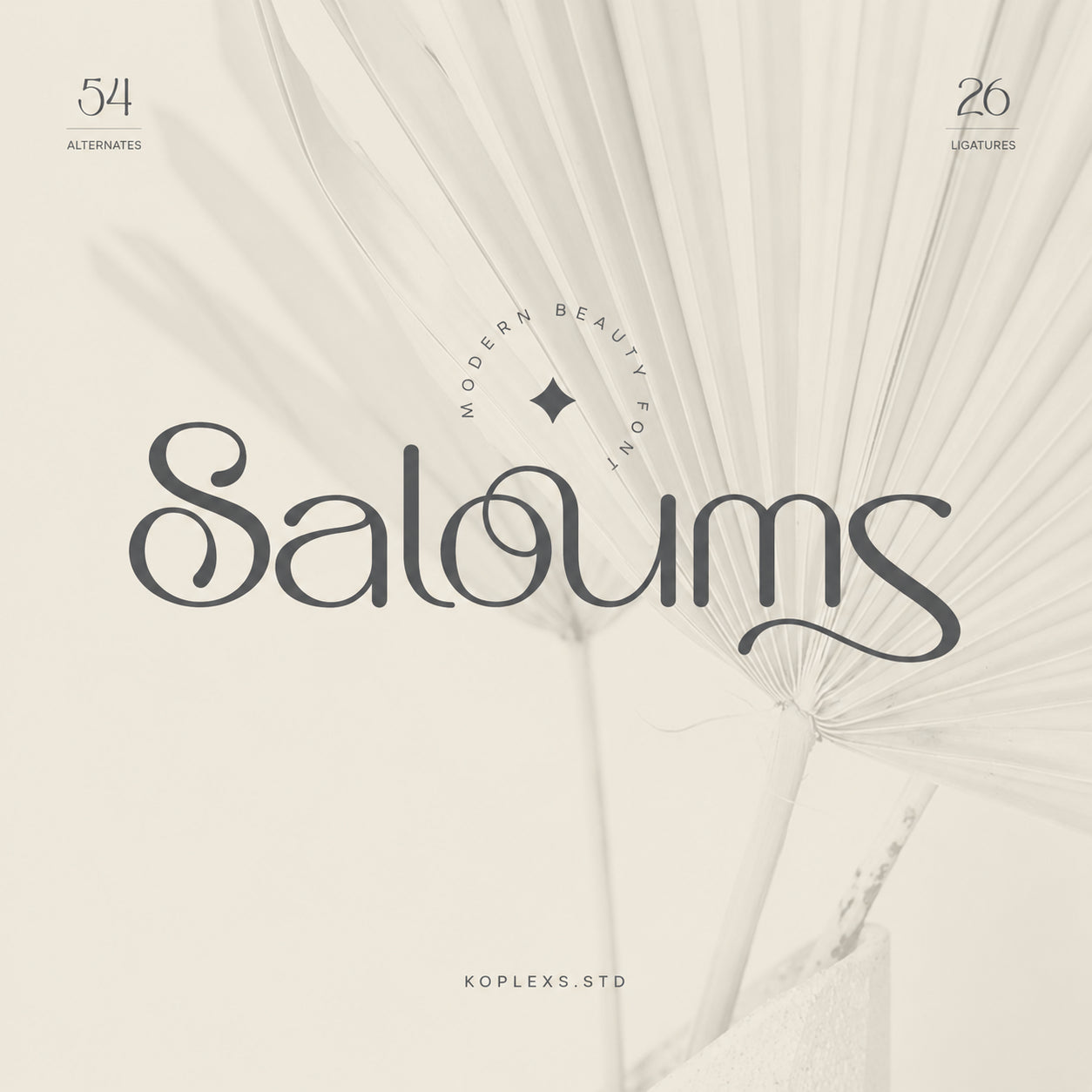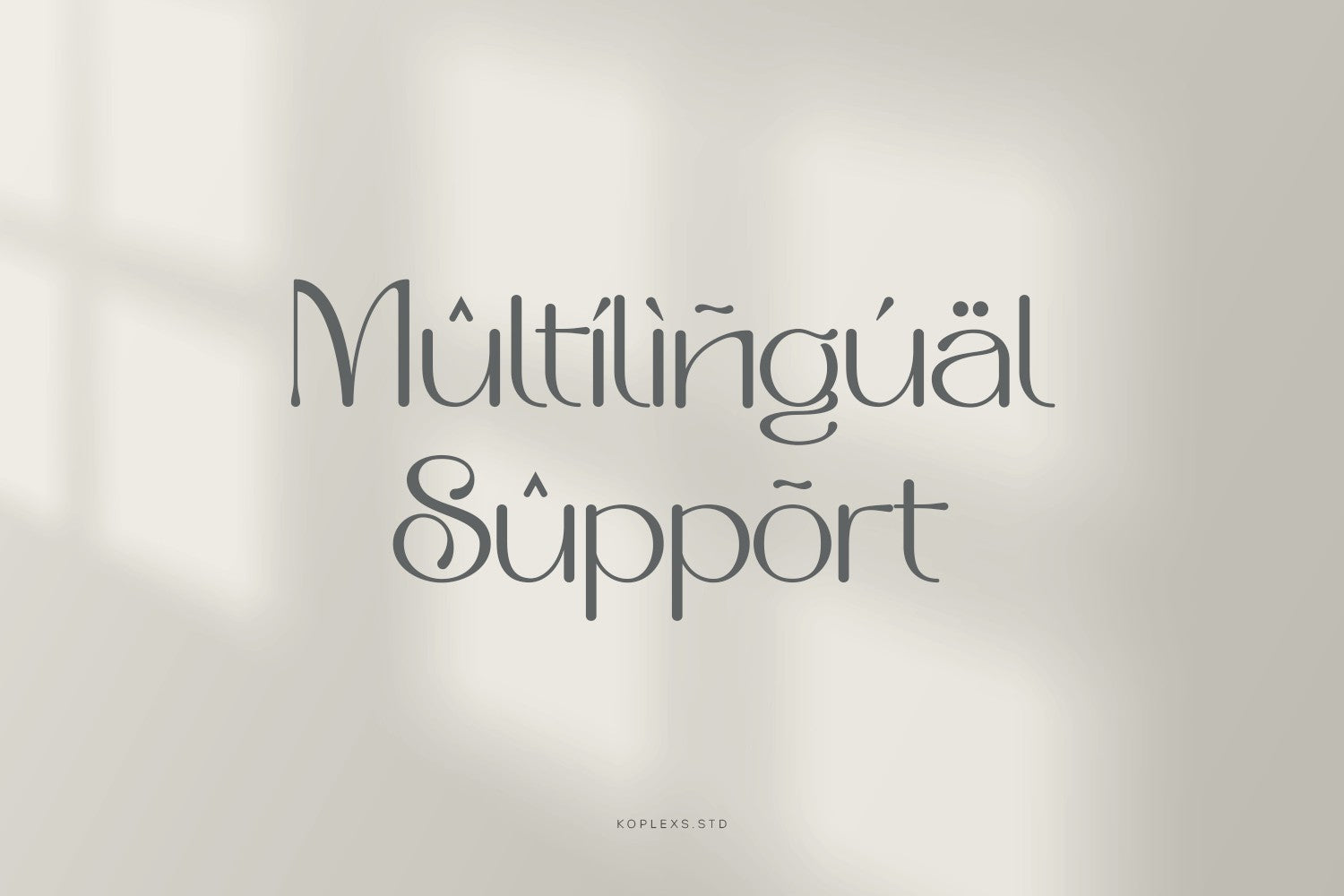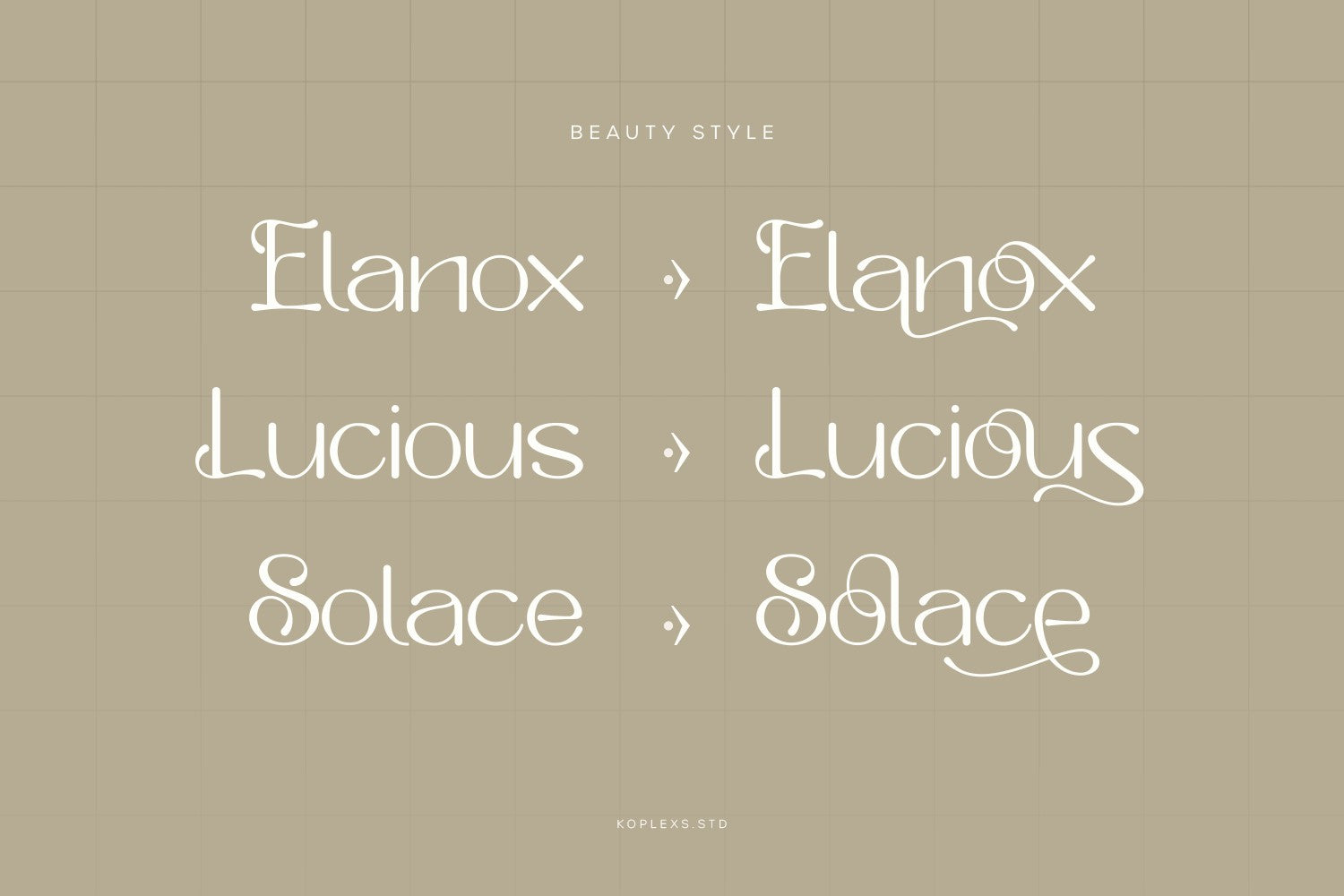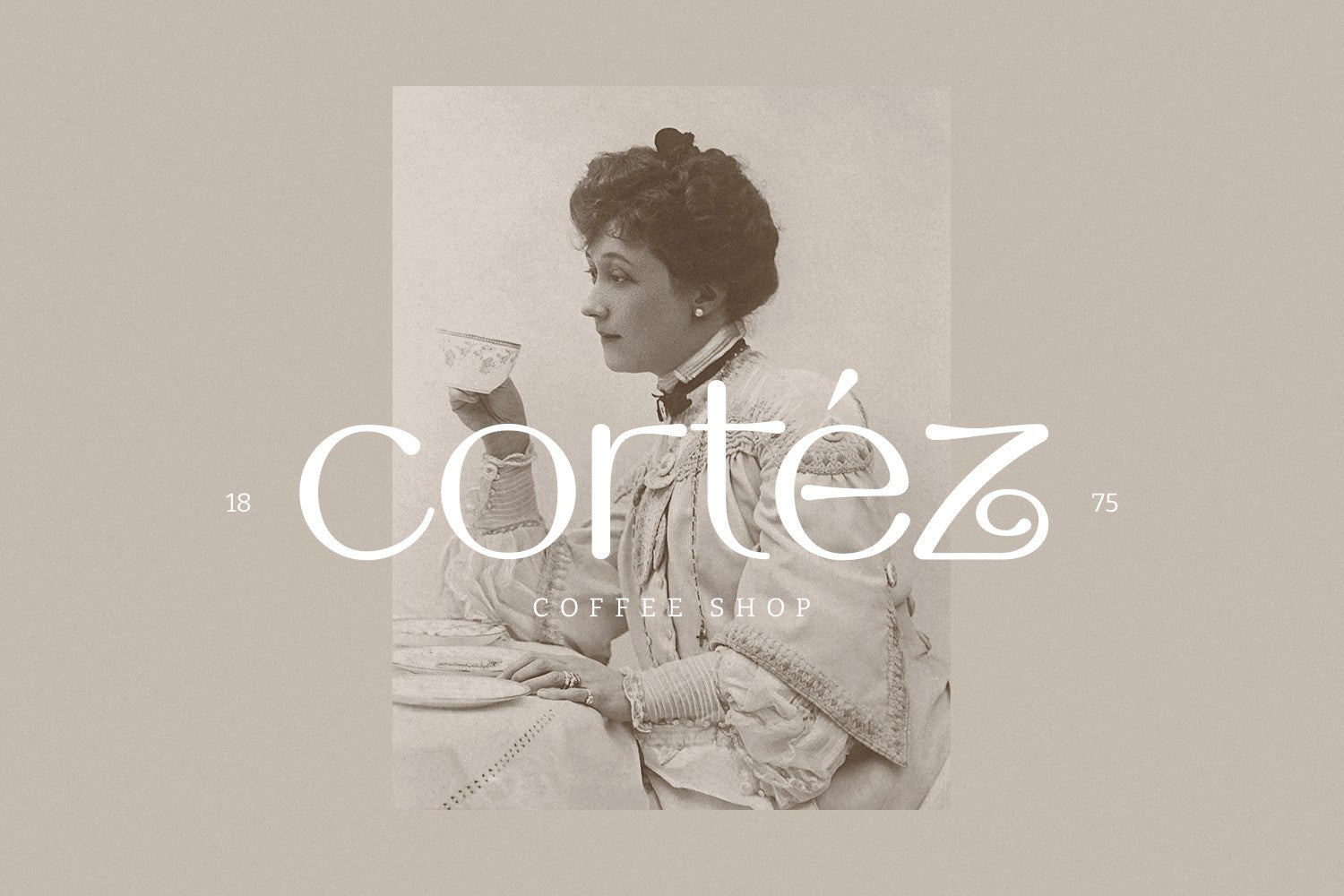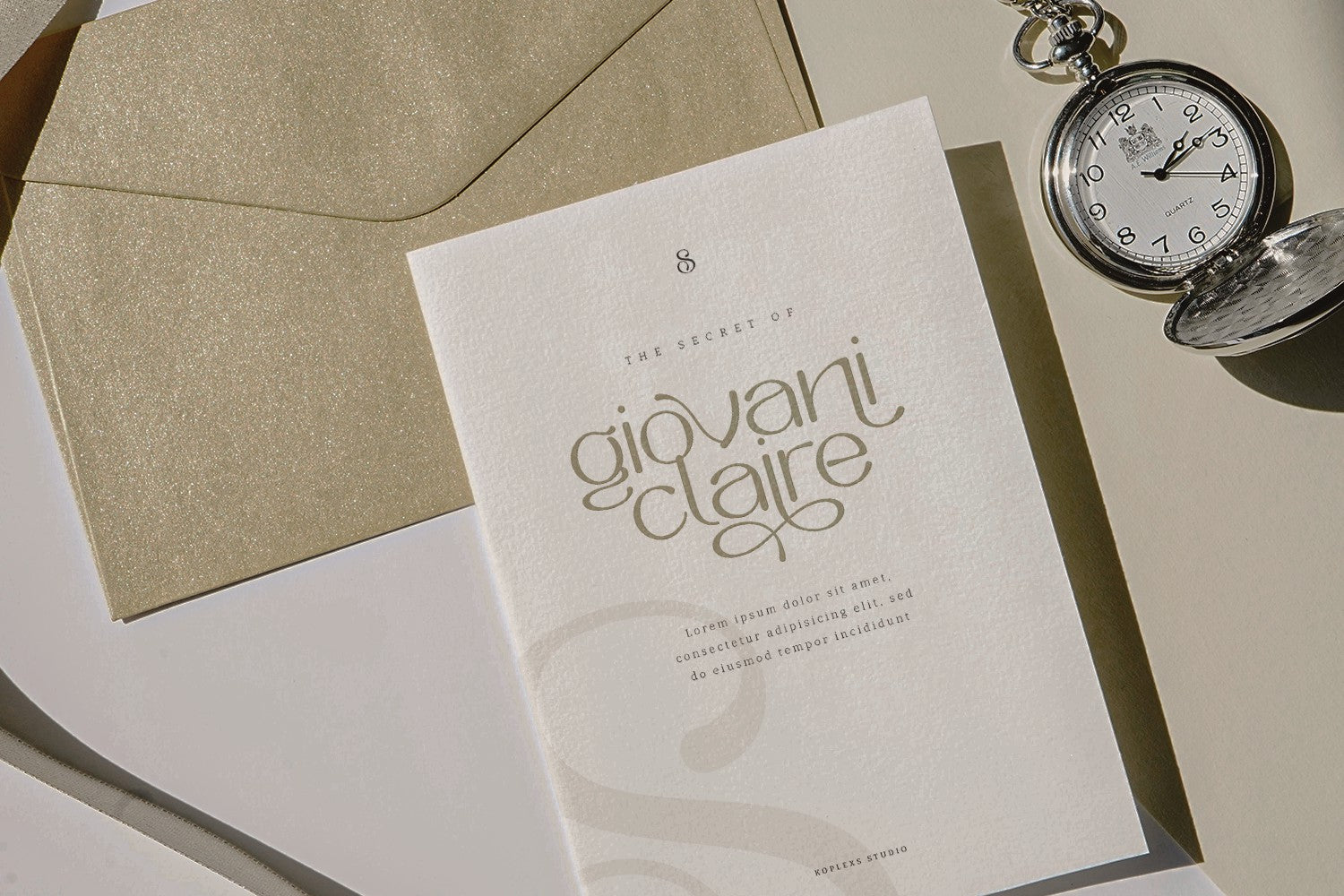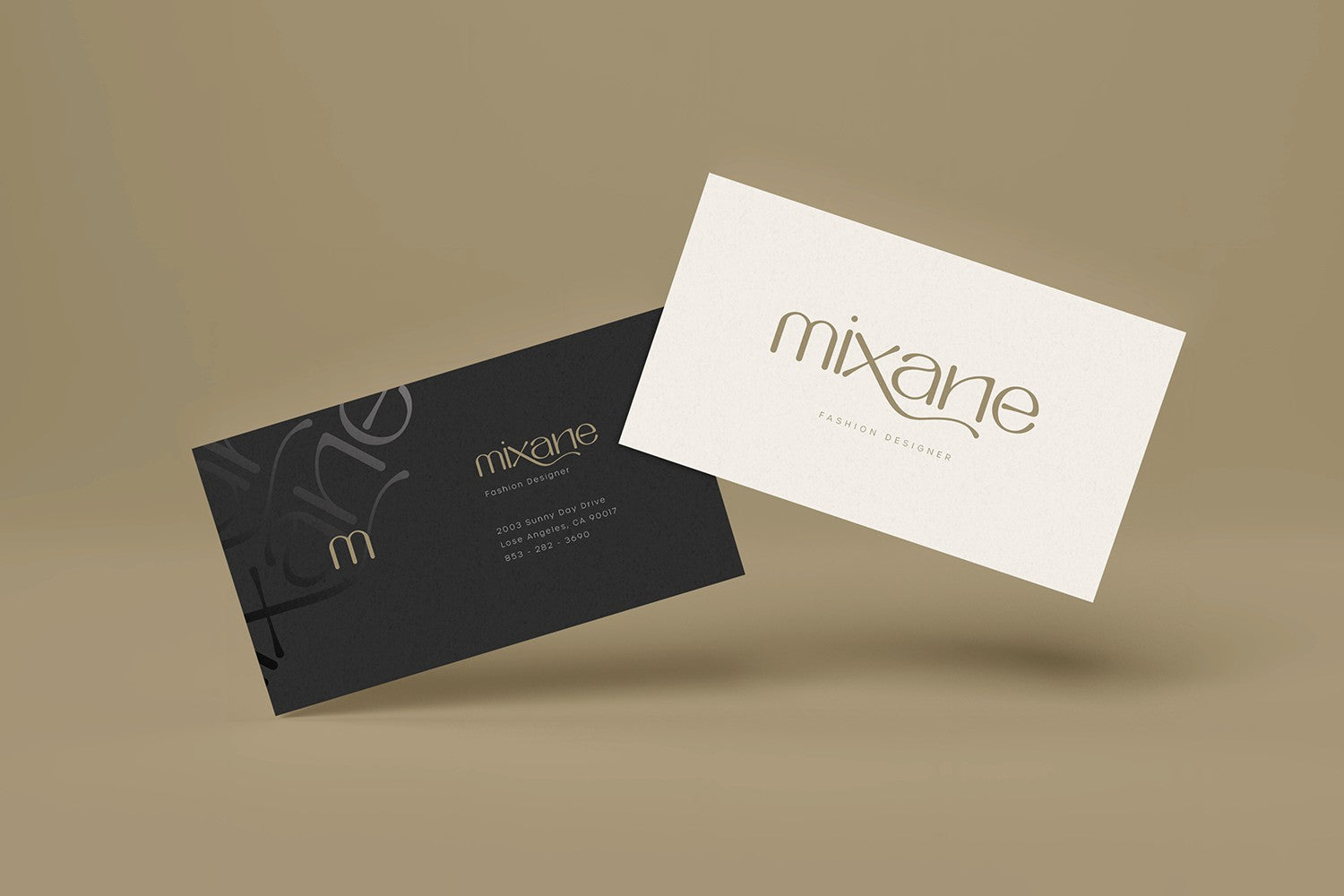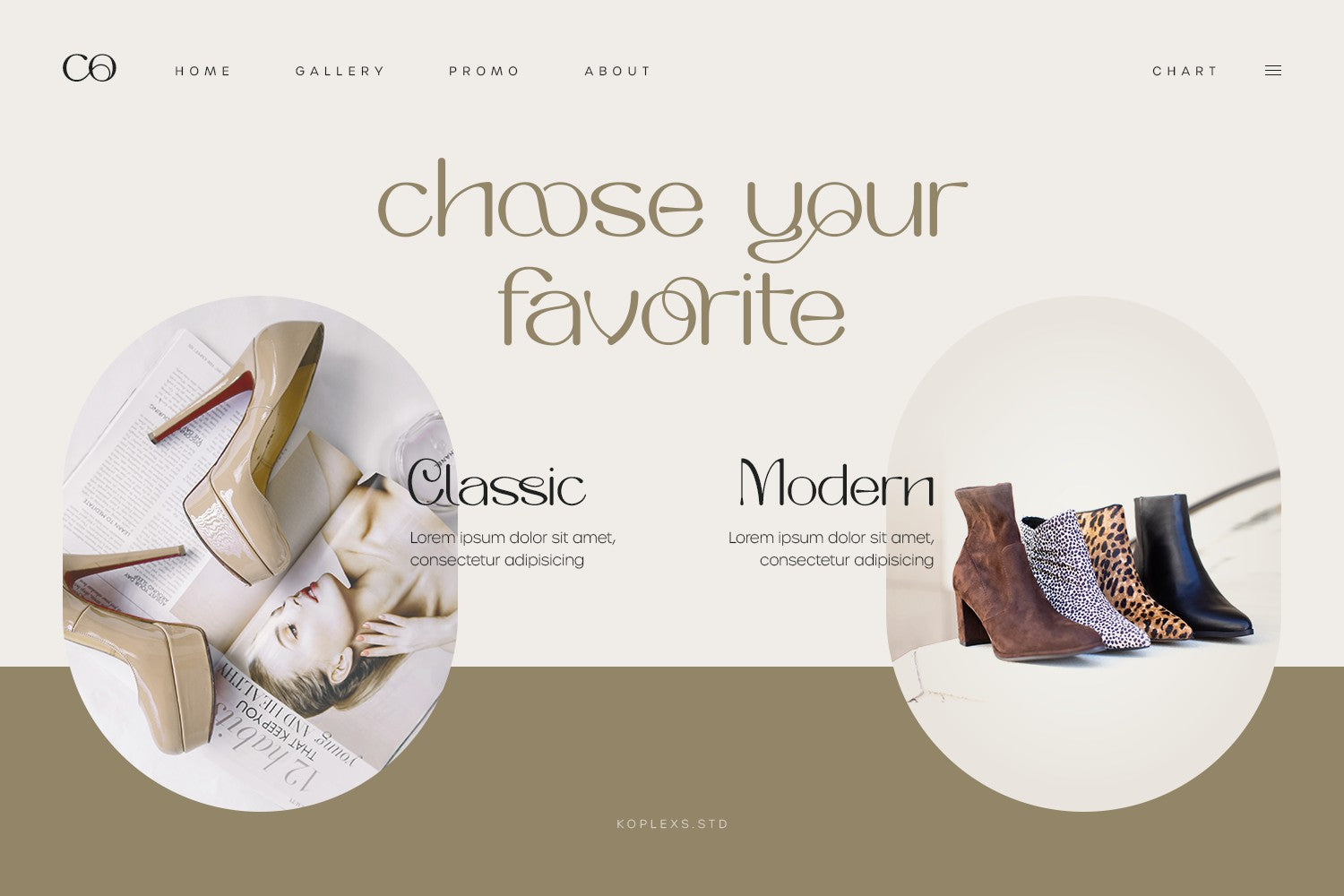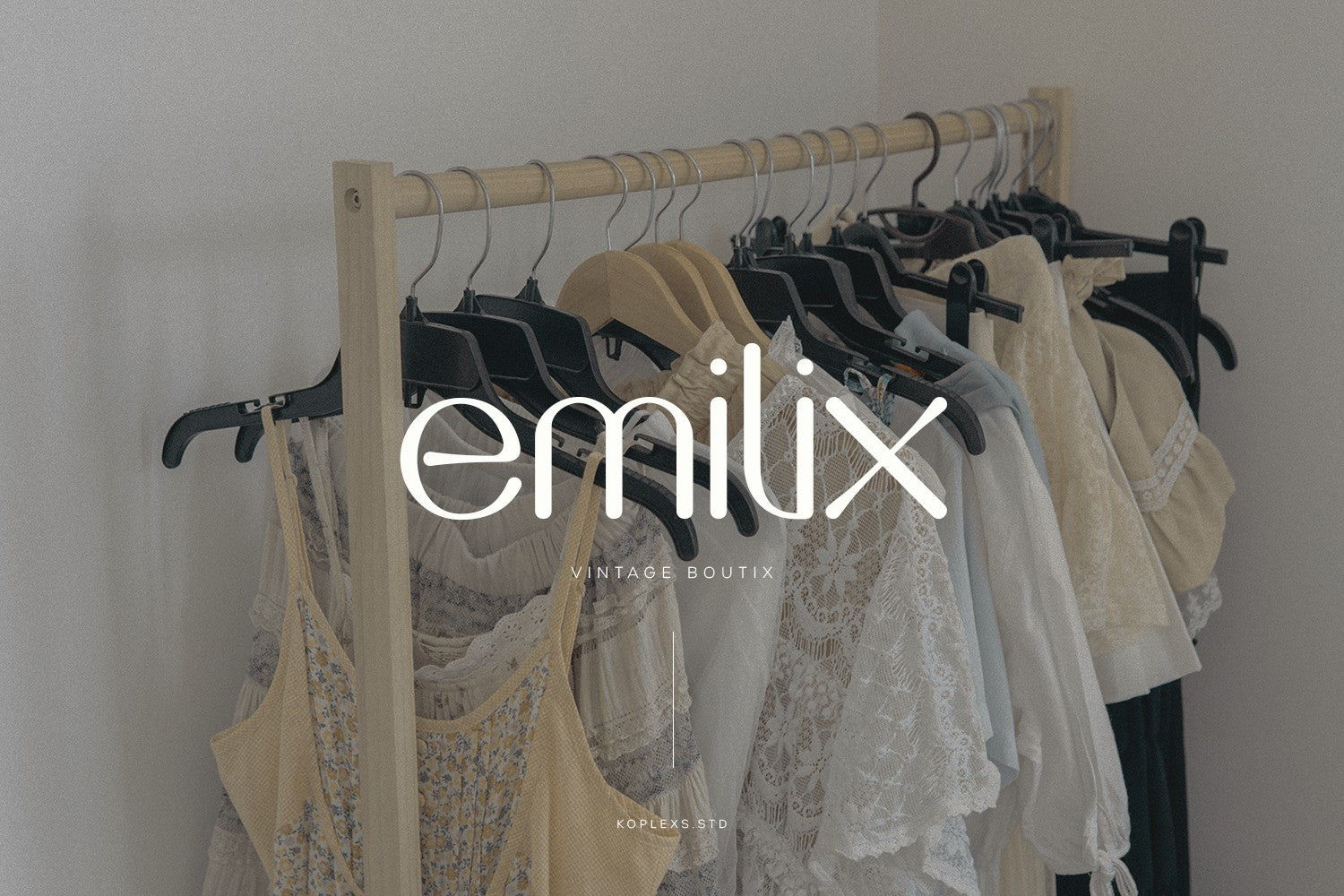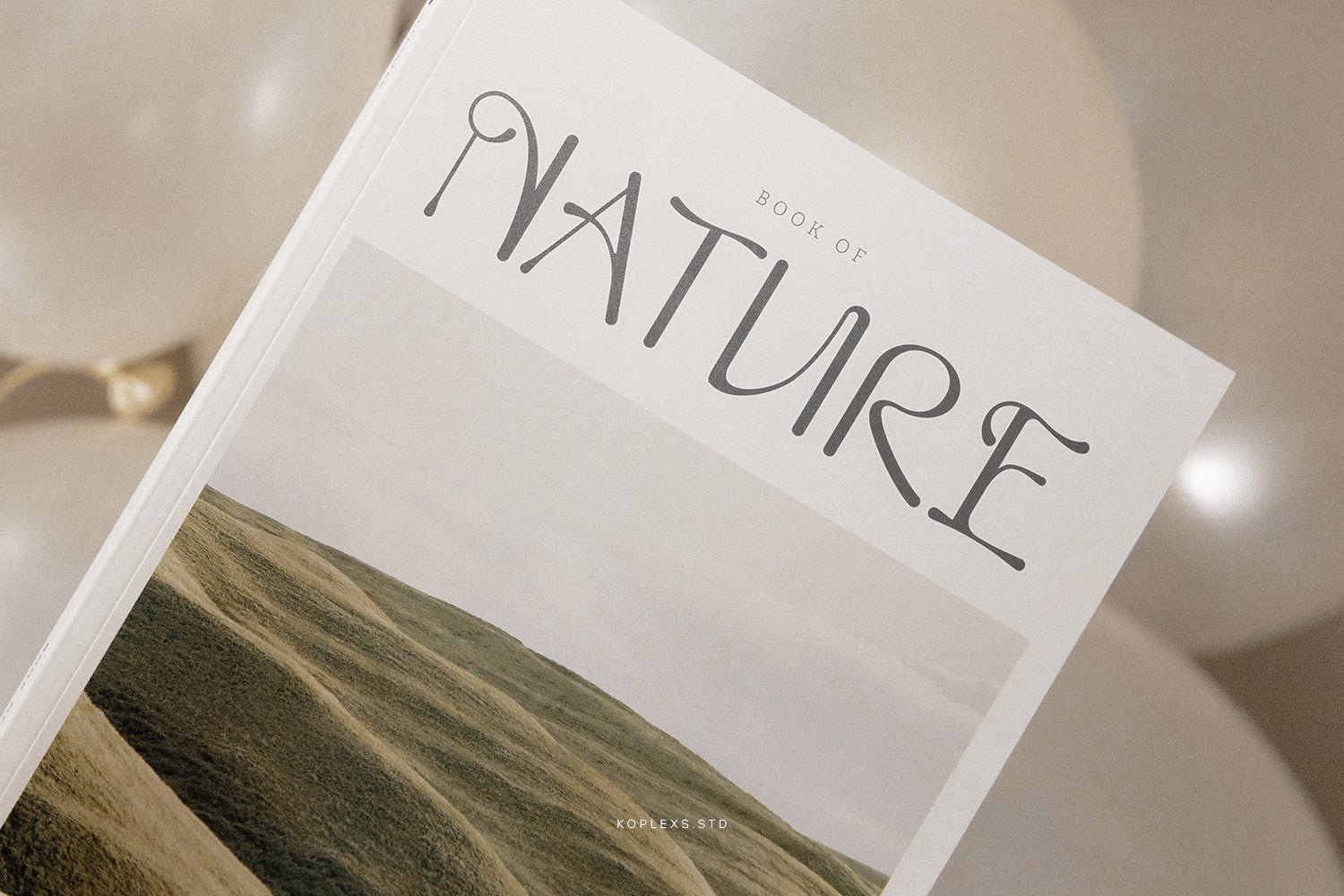
Saloums Font
Saloums Font is an elegant modern display font designed to bring sophistication and personality to every creative project. Featuring 54 beautiful alternates and 26 seamless ligatures, it allows you to create distinctive typography with graceful letter combinations and a premium handcrafted appearance. Its refined details and balanced proportions make it perfect for designers who want to achieve a luxurious, stylish, and timeless look. Whether you're working on digital or print media, Saloums Font offers exceptional versatility and professional quality for creating memorable visual identities.
Perfect for logo design, branding, wedding invitations, save the date cards, greeting cards, business cards, product packaging, beauty and cosmetic branding, fashion labels, boutique businesses, magazine covers, book covers, editorial layouts, posters, website headers, social media graphics, printable templates, and marketing materials, Saloums Font combines modern elegance with excellent readability. It includes uppercase and lowercase letters, numbers, punctuation, multilingual support, OpenType features, and PUA encoding for easy access to alternates and ligatures. Compatible with Adobe Illustrator, Photoshop, InDesign, Canva, Figma, Affinity Designer, CorelDRAW, Cricut Design Space, Silhouette Studio, and other OpenType-compatible software, Saloums Font is the perfect choice for designers, entrepreneurs, and creative professionals looking to elevate every project with sophisticated typography.
Bring elegance, creativity, and lasting visual impact to your next design project with Saloums Font—the perfect choice for designers, entrepreneurs, content creators, and creative professionals seeking a modern, luxurious, and highly versatile display typeface.
Saloums Font is a modern display typeface that features 54 alternates and 26 ligatures, providing a sophisticated and handcrafted appearance. It includes uppercase and lowercase letters, numbers, punctuation, multilingual support, and OpenType features, making it compatible with various design software for versatile typography applications.